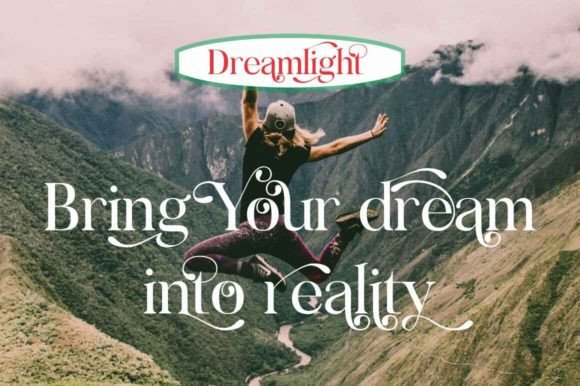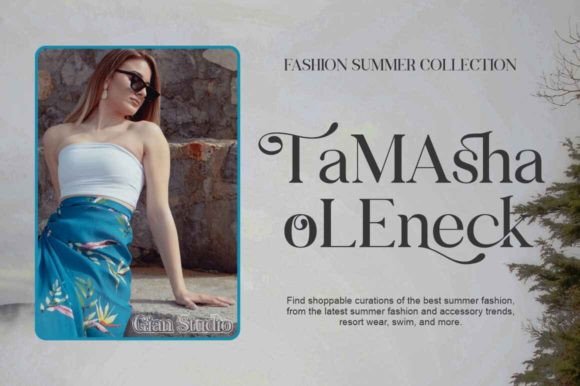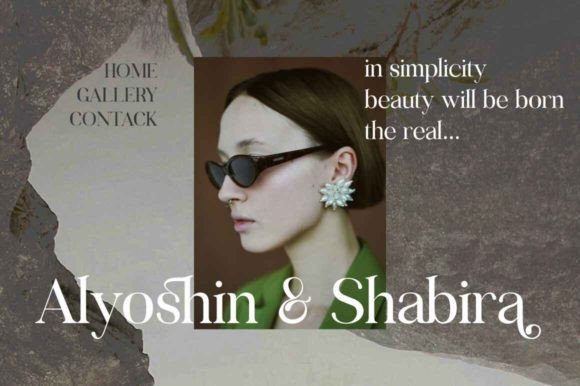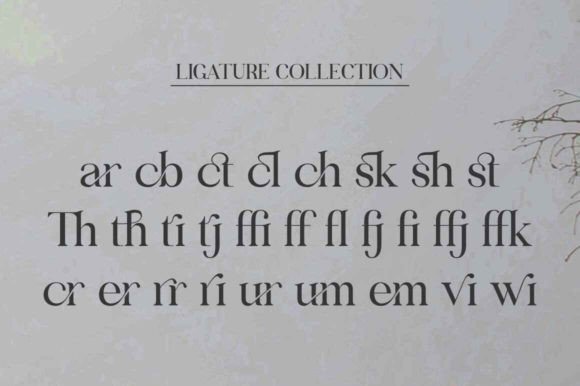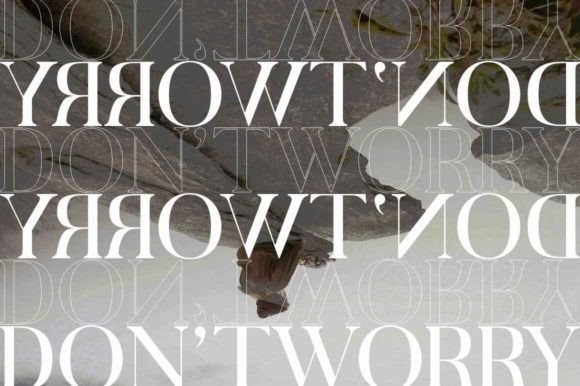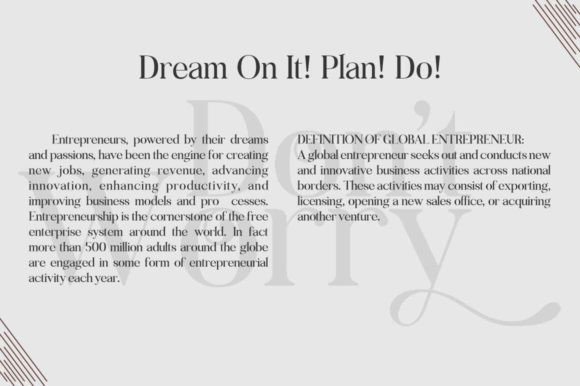
Introducing Don’t Worry Font: The Ultimate Statement Typeface
In the world of typography, fonts are more than just a means to convey words – they’re a way to express emotions, convey messages, and make a lasting impression. Among the numerous typefaces available, one font stands out for its unique characteristics and bold presence: Don’t Worry Font. This remarkable typeface is not just a collection of letters; it’s a statement, a declaration of confidence and authority.
The Magic of Don’t Worry Font
What makes Don’t Worry Font truly special is its transformative nature. When converted to upper and lower case, the font undergoes a magical change, exuding power and elegance with every bold stroke and charming curve. Each letter stands tall, making its presence known with unwavering confidence. This distinctive feature makes it an ideal choice for designers and crafters looking to make a bold statement.
A Font of Authority and Confidence
Don’t Worry Font is more than just a typeface; it’s a symbol of authority and confidence. Its bold and elegant appearance elevates even the simplest text, turning it into a masterpiece. Whether you’re designing a magazine headline, book cover, or billboard, this font demands attention and leaves a lasting impression. Its confident stance and charming curves make it perfect for projects that require a strong visual impact.
Perfect for Bold Impressions
Don’t Worry Font is specifically designed for use in projects where a bold impression is essential. Its striking appearance makes it suitable for a wide range of applications, including:
- Magazine headlines: Grab the reader’s attention with a bold and confident headline that sets the tone for the rest of the article.
- Book covers: Make your book stand out on the shelves with a captivating cover that showcases the Don’t Worry Font.
- Billboards: Create a lasting impression on passersby with a bold and eye-catching message that demands attention.
- Advertising materials: Use Don’t Worry Font to create striking ads that leave a lasting impact on your target audience.
Why Choose Don’t Worry Font?
With so many typefaces available, why choose Don’t Worry Font? Here are just a few reasons why designers and crafters love this unique font:
- Confidence and authority: Don’t Worry Font exudes confidence and authority, making it perfect for projects that require a strong visual impact.
- Bold and elegant: The font’s bold and elegant appearance elevates even the simplest text, turning it into a masterpiece.
- Versatility: Don’t Worry Font is suitable for a wide range of applications, from magazine headlines to book covers and billboards.
- Easy to read: Despite its bold appearance, Don’t Worry Font is easy to read, making it perfect for use in a variety of contexts.
Don’t Worry Font is more than just a typeface; it’s a statement, a declaration of confidence and authority. Its unique characteristics, bold presence, and elegant appearance make it perfect for designers and crafters looking to make a lasting impression. Whether you’re working on a magazine headline, book cover, or billboard, Don’t Worry Font is the ultimate choice for those who want to make a bold statement.